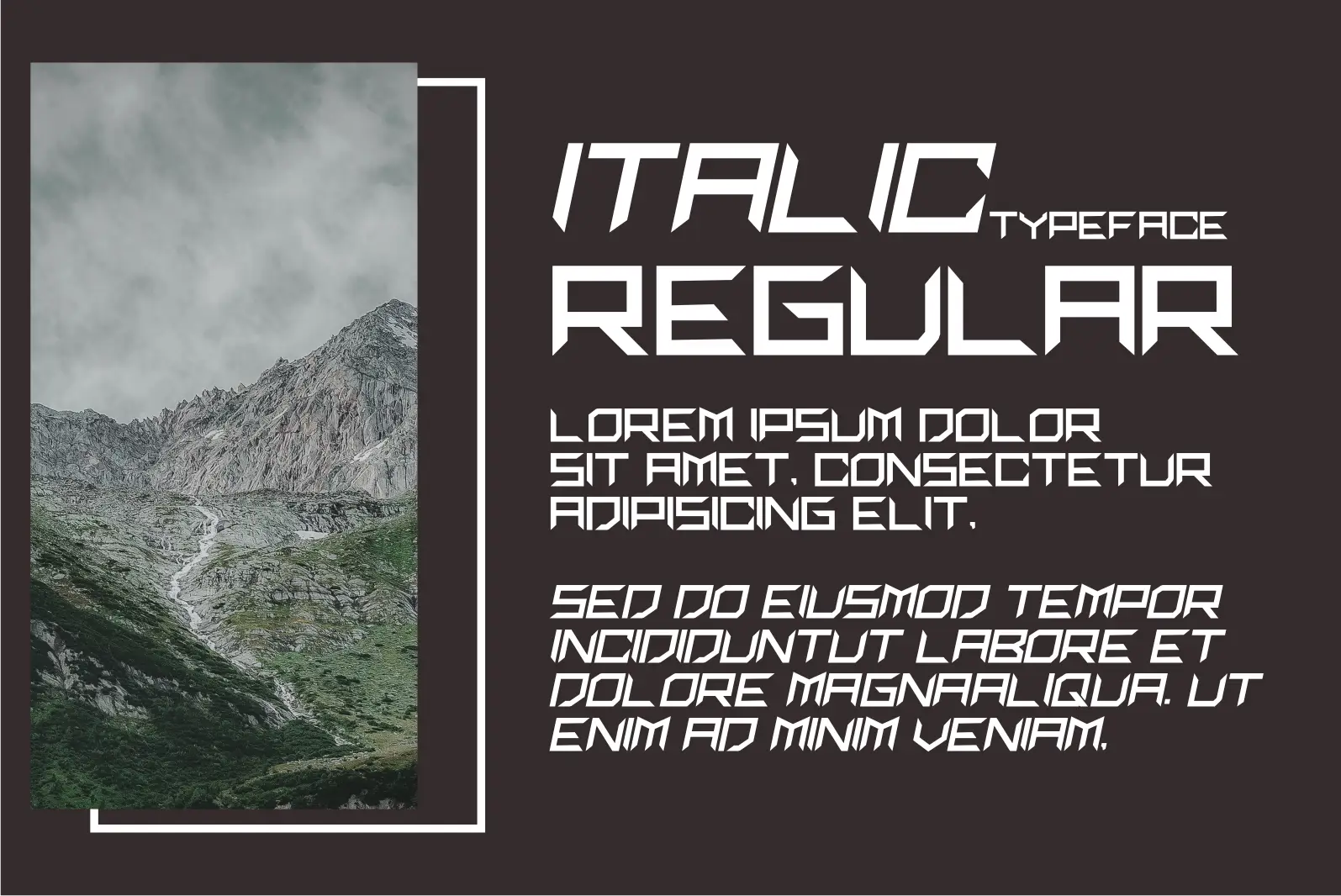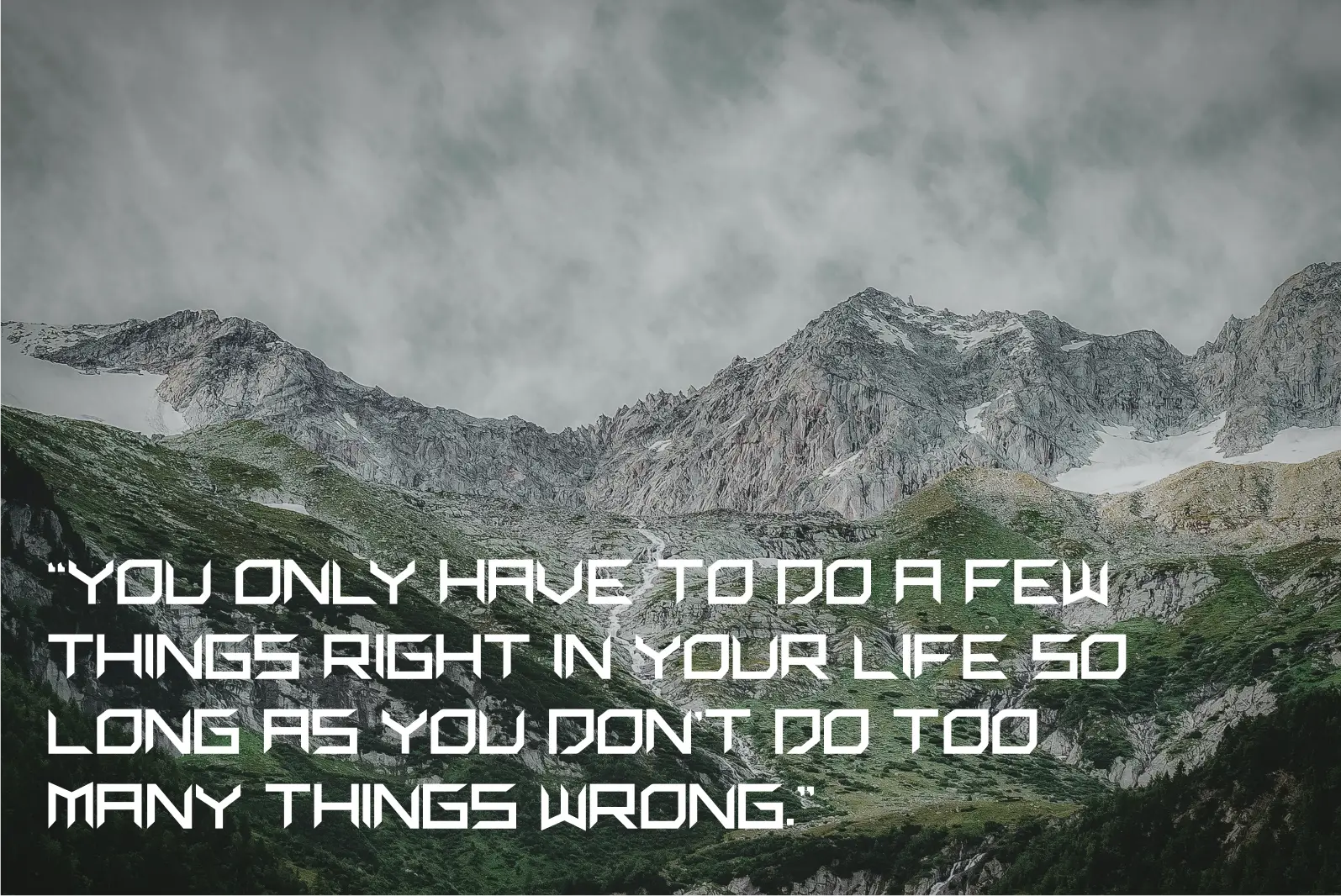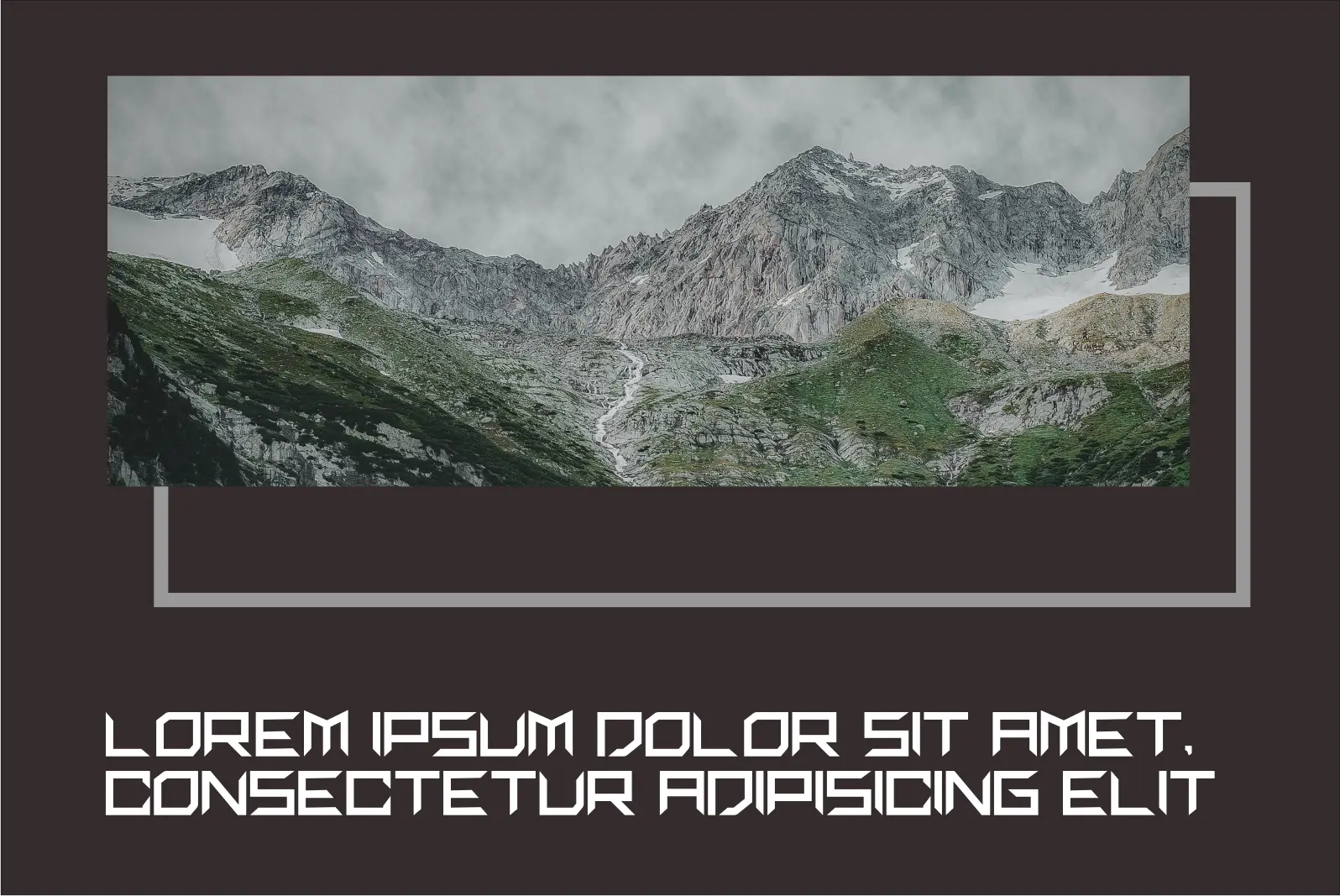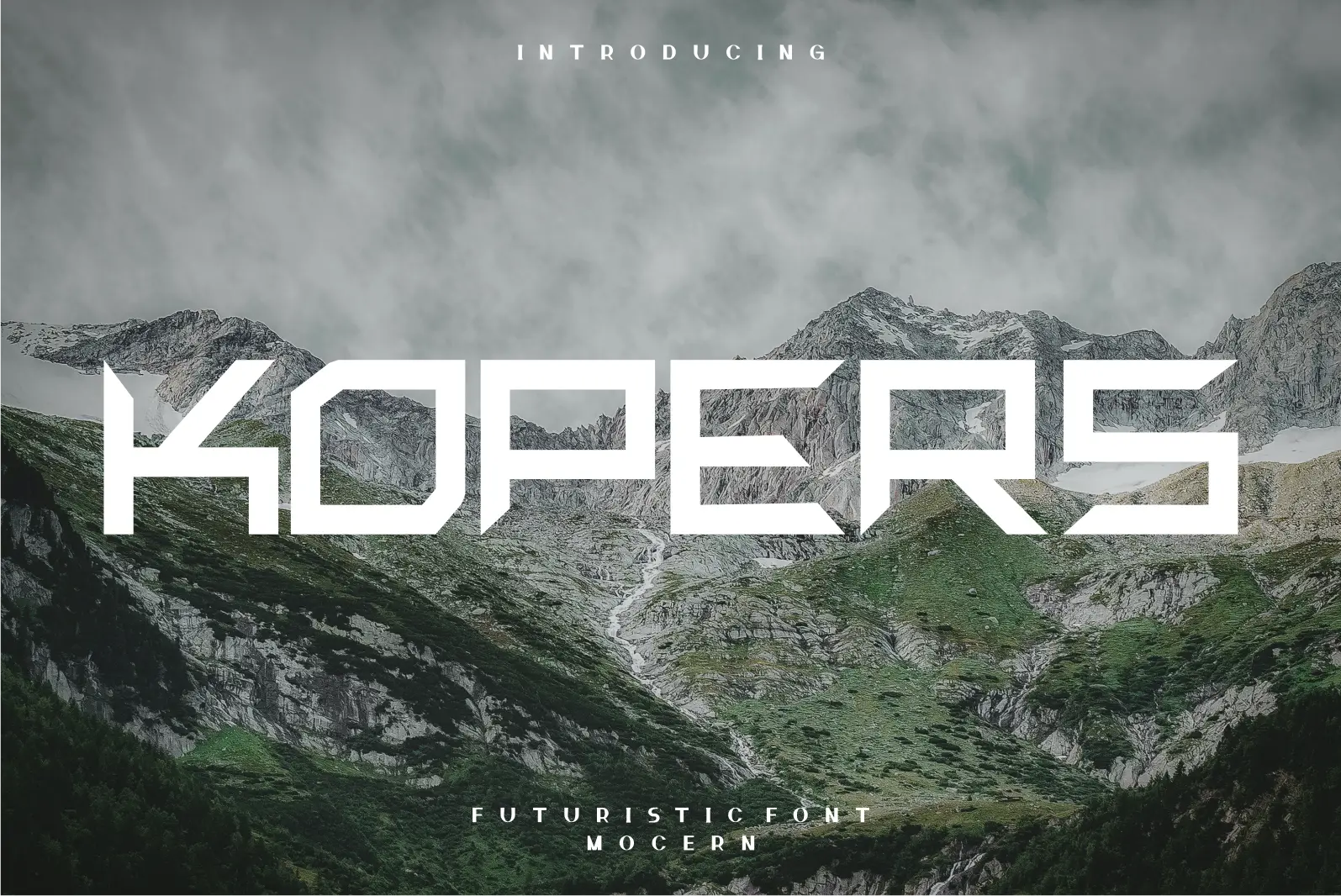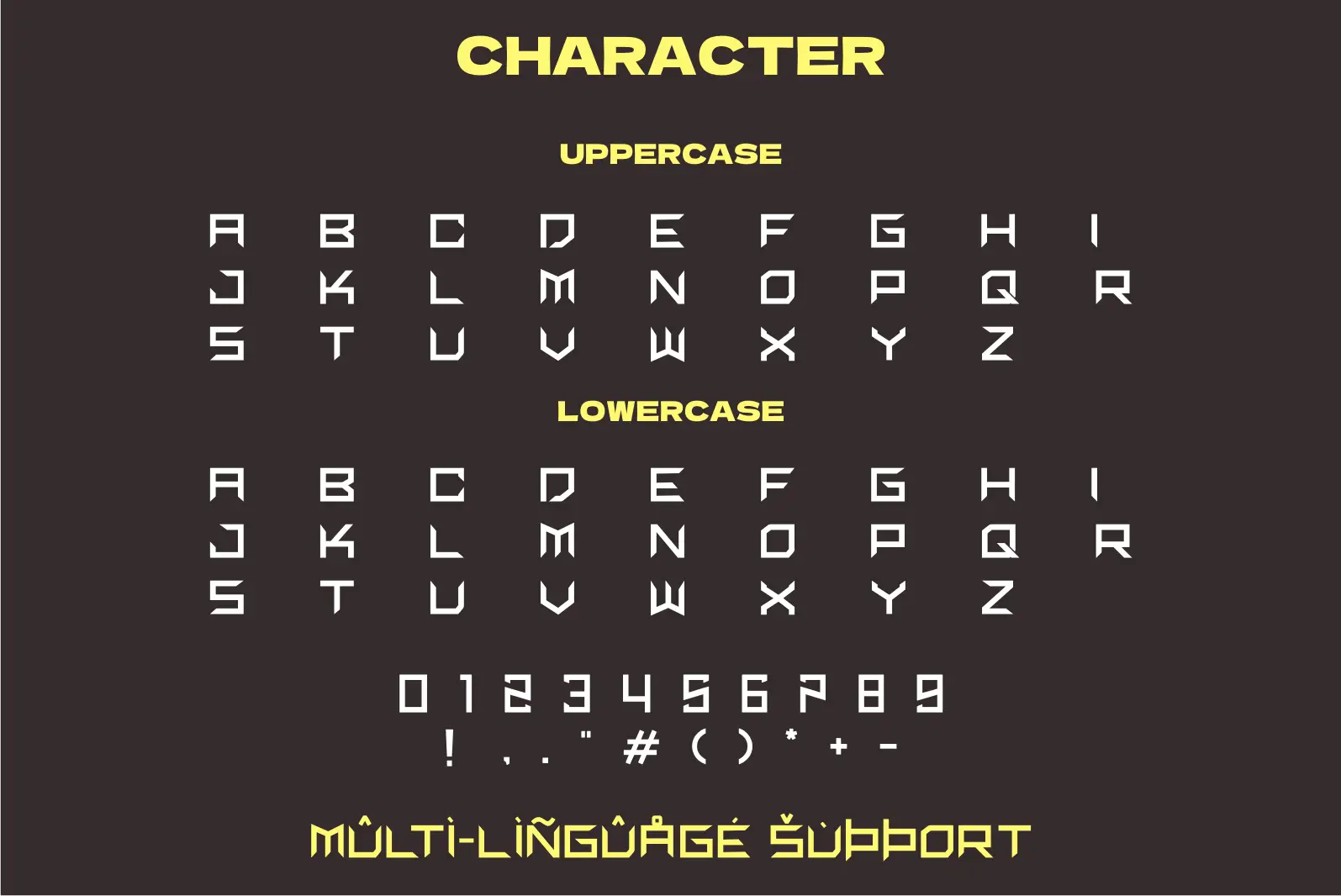
The Kopers Display Font is a striking typeface designed to make a bold statement in any project. With its unique character shapes and eye-catching design, this font is perfect for branding, logos, and various print applications.
- Styles: Display
- Weights: Regular, Bold
- Ideal for headlines, posters, and promotional materials.
- Pair with complementary sans-serif fonts for a balanced look.